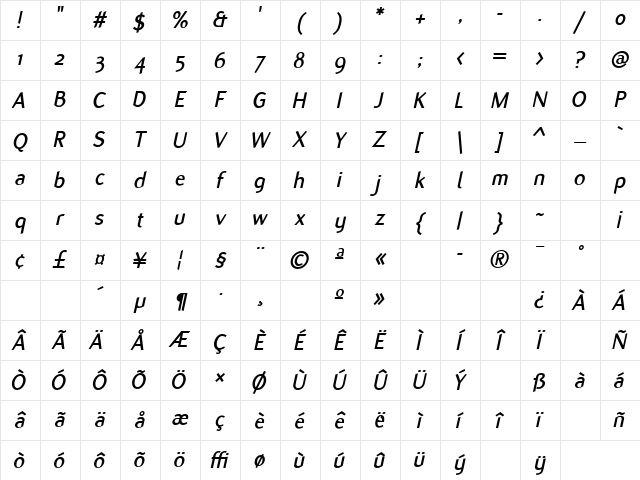
Flux Regular
Foundry: Monib Mahdavi, MonibDesign
Design Context for Flux
Flux is a composed and adaptable typeface that performs quietly and consistently across a wide range of design contexts.